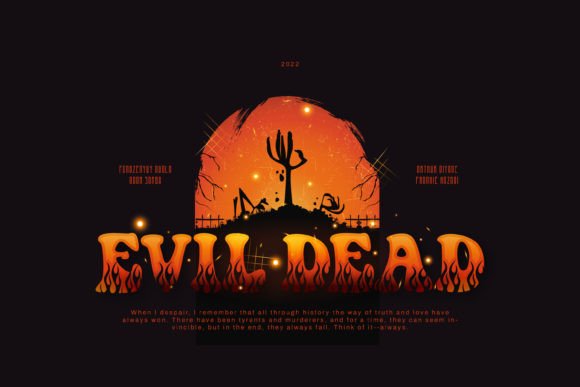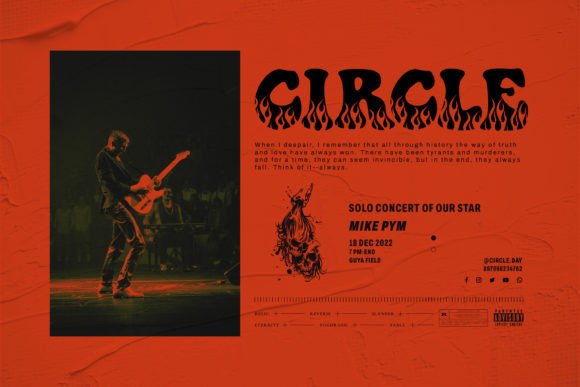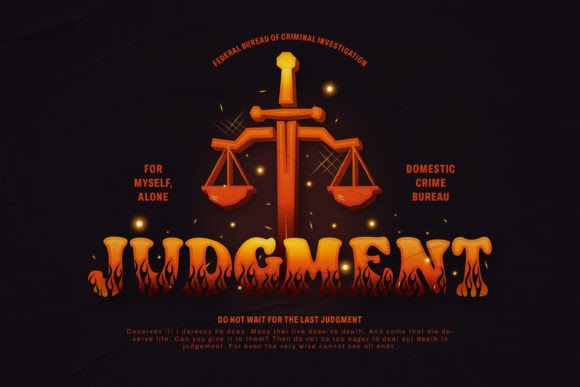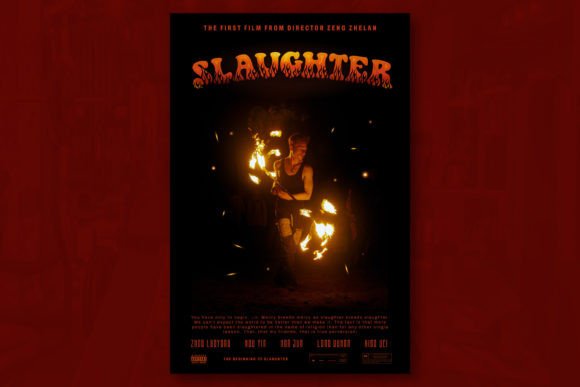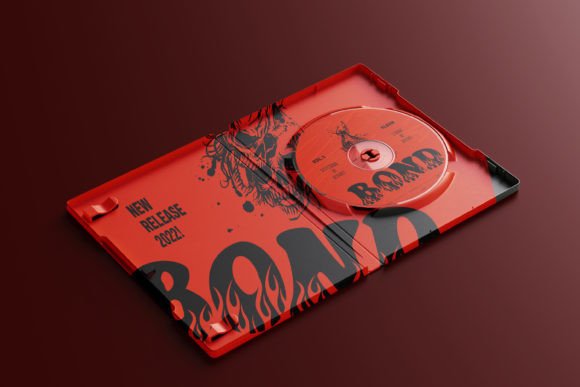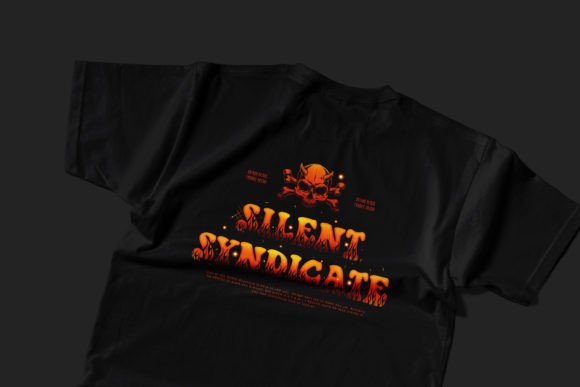
Introduction to Rozok Font
Do you ever have one of those moments where you’re working on a creative project and you just can’t seem to find the right font to bring it all together? You’ve tried every free download and design resource in sight, but nothing seems quite right. That’s when you stumble upon Rozok Font – a hot and fun decorative font that’s sure to add some much-needed excitement to your design.
With its unique style and high quality design, Rozok Font is the perfect addition to any project that needs a little extra flair. Whether you’re working on a logo, a social media graphic, or even just a fun little graphic for a transparent background, Rozok Font is sure to bring a smile to your face and a touch of creativity to your design.
As a designer, you know how valuable it is to have a reliable design resource like Rozok Font at your fingertips. With its free download and easy-to-use design, you can add a professional touch to any project, no matter how big or small. So why wait? Add Rozok Font to your design arsenal today and get ready to take your creative projects to the next level!
Rozok Font Key Features
• High-quality design font suitable for creative projects, ideal for those who need a unique touch for their work.
• Transparent background, making it easy to use on any color or design without worrying about background interference.
• Features a high resolution of 300 DPI, ensuring crisp and clear text display, perfect for printing and digital use.
• Designed to be versatile, the Rozok Font is perfect for various design projects, from brochures and posters to website headers and social media graphics.
Honest Review: Rozok Font
As a designer, I’m always on the lookout for unique and high-quality design resources to elevate my creative projects. The Rozok Font is one such find that caught my attention recently.
• ✨ The Rozok Font offers a transparent background, making it a great option for designers who want to create seamless designs.
• ✨ The font’s design is modern and sleek, making it perfect for creative projects that require a professional touch.
• ⚠️ The Rozok Font may not be suitable for projects that require a lot of customization, as it’s a relatively simple font.
• ⚠️ The font may not be as versatile as some other design resources, making it less ideal for projects that require a wide range of font styles.
Overall, the Rozok Font is a solid design resource that’s perfect for designers working on creative projects that require a modern and sleek look. While it may have some limitations, its high quality and free download make it a great option for designers on a budget.
Rozok Font is a high-quality design resource that can be used to enhance your creative project. It’s a free download that offers a transparent background, making it easy to use in a variety of design applications.
Tips for Getting the Most Out of Rozok Font
To get the most out of Rozok Font, experiment with different font sizes, colors, and combinations to create unique and eye-catching designs. You can also use the font in conjunction with other design resources to create a cohesive look.
Rozok Font is commonly used for creative projects such as logos, branding, and marketing materials. It’s also great for use in presentations, documents, and websites.
Is Rozok Font suitable for use in digital displays?
Yes, Rozok Font is designed to be highly legible and clear, making it suitable for use in digital displays such as mobile devices, websites, and digital signage. Its high-quality design and transparent background capabilities make it an ideal choice for designers working on digital creative projects.